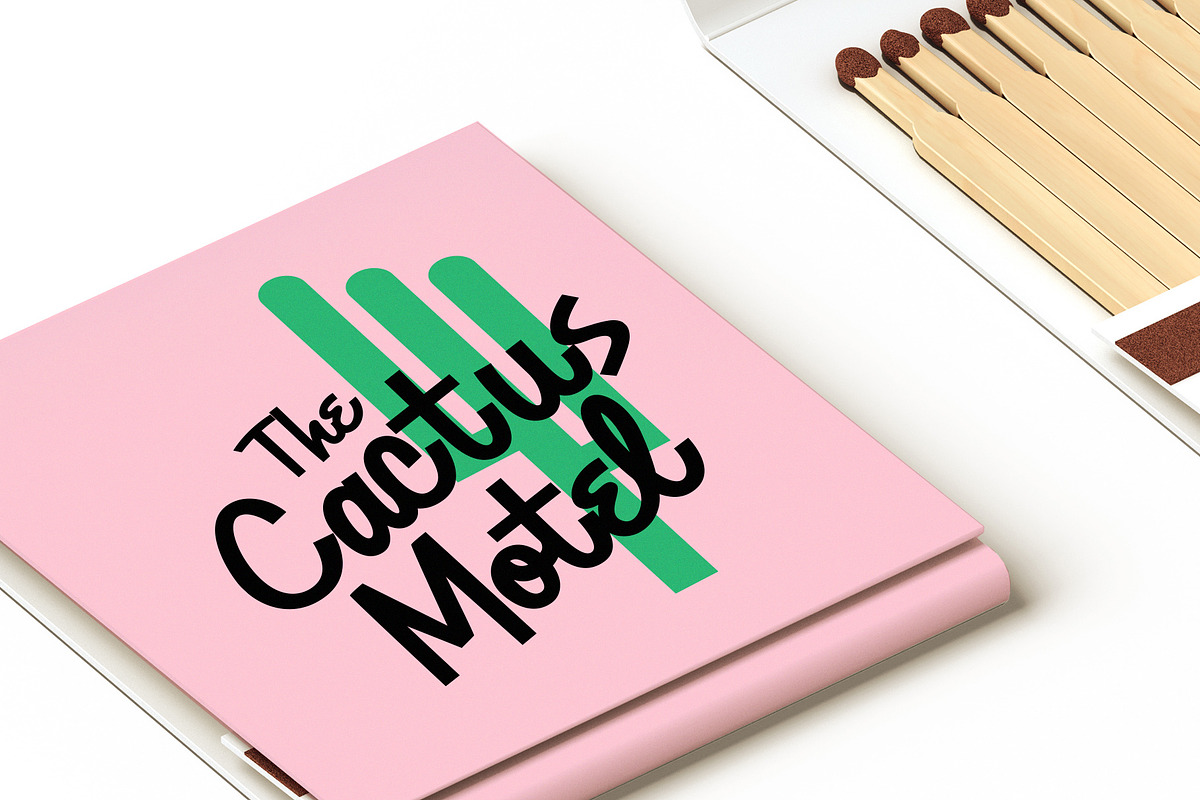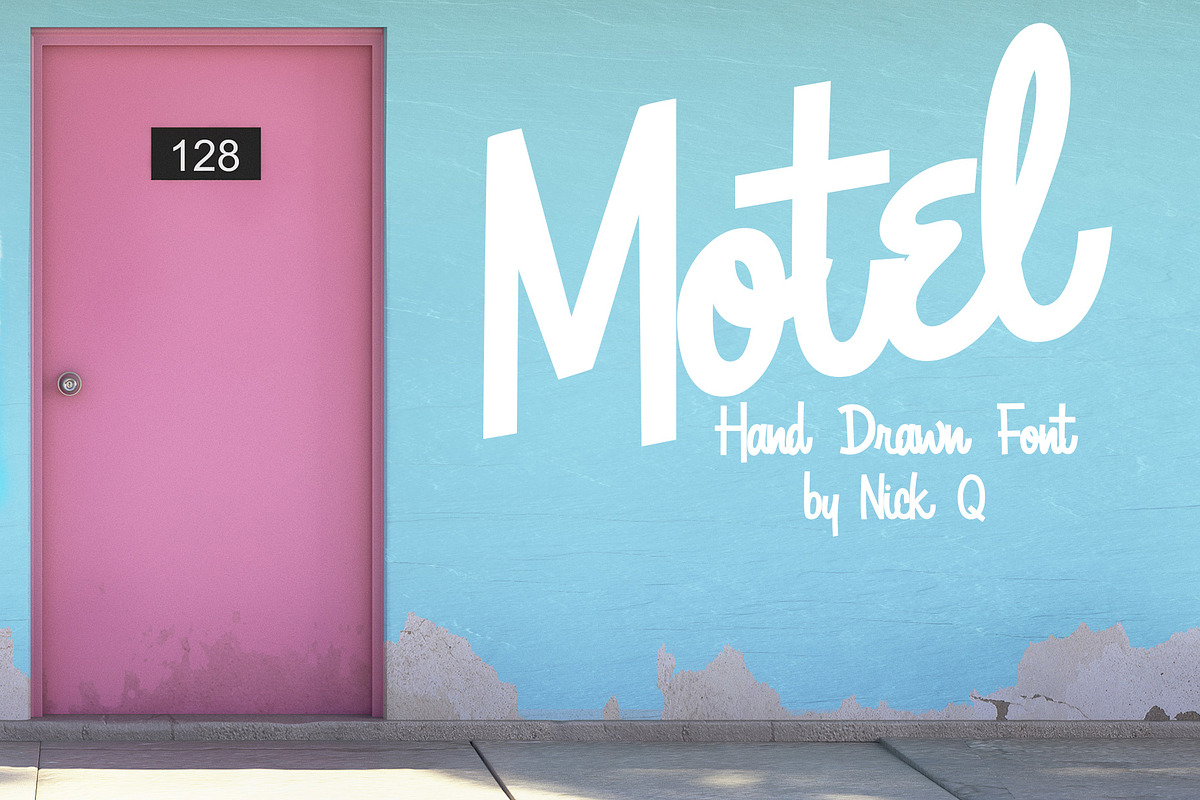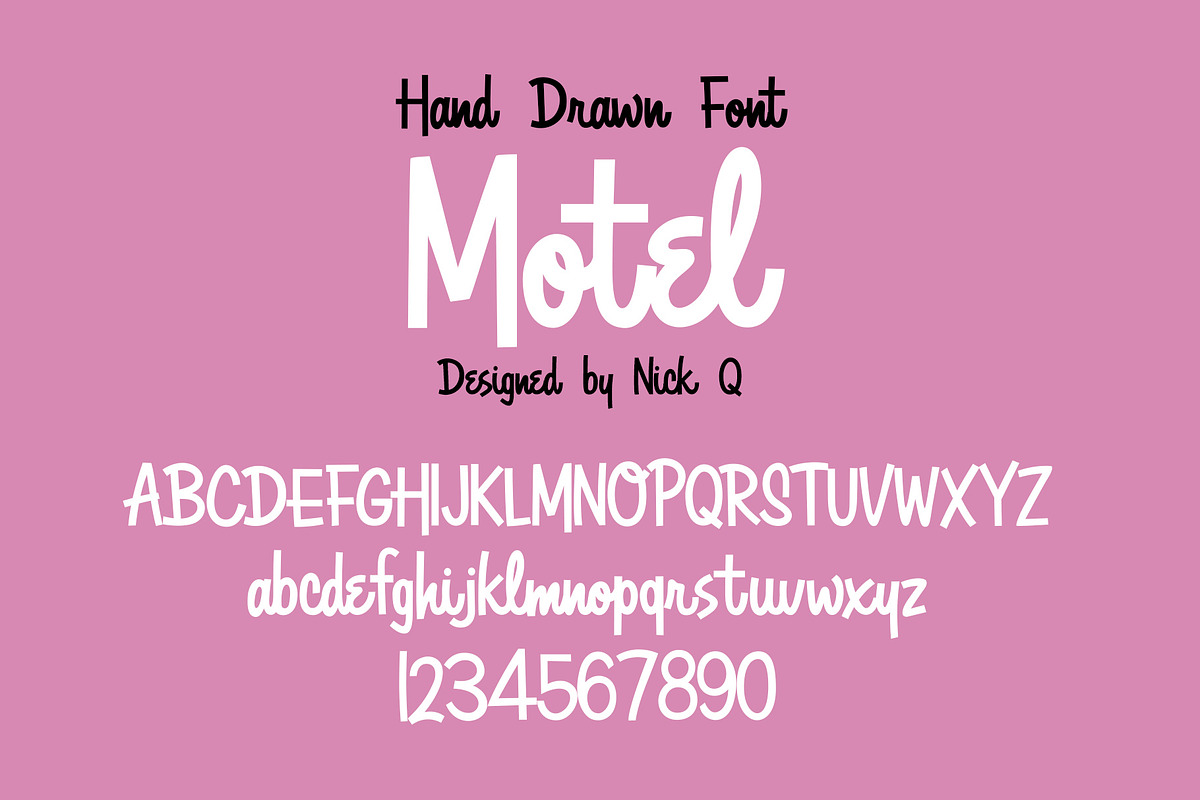
Motel Hand Drawn Font
Need a hand drawn touch to your project? Get to your results faster with my hand drawn font Motel!
Perfect for posters, flyers, band merch, t-shirts and more.
Each character was hand drawn in Illustrator, inspired by vintage motel and hotel signs.